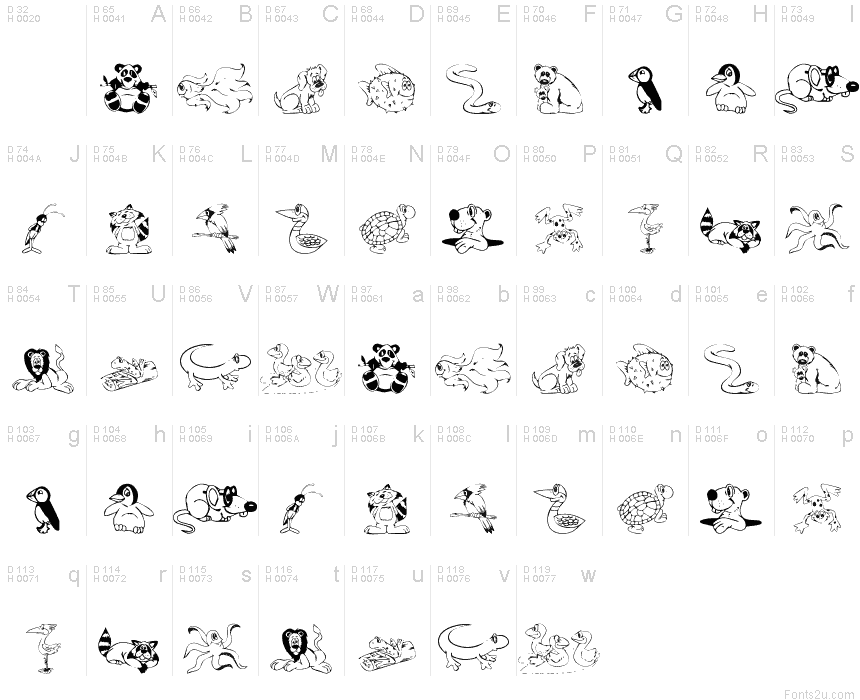
KR Lil Buddies
KR Lil Buddies designed in 2002 by Kat Rakos is a lovely animal dingbat font with hand-drawn cartoon creatures and simple outline forms. The set repeats rounded faces, striped tails, and perched birds, so the icons feel like one family of little companions rather than separate clip-art pieces.
KR Lil Buddies fits children's invitations, classroom handouts, scrapbook pages, pet-themed flyers, stickers, and border accents where those animal motifs can do the decorative work. It brings a homemade cartoon touch to labels, party print pieces, and playful page ornaments without needing much extra styling.